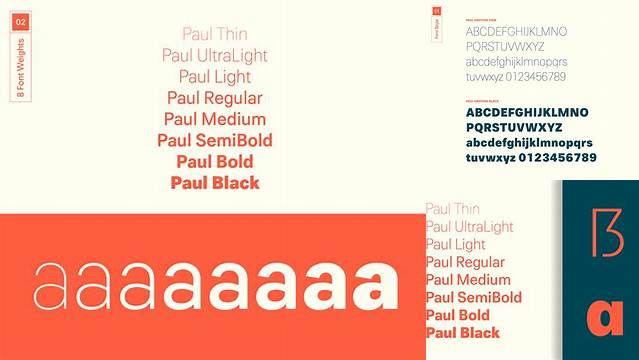
Paul Grotesk Font: Free Options & Alternatives
Are you on the hunt for a Paul Grotesk font that won't break the bank? Well, you've landed in the right spot! This comprehensive guide will dive deep into the world of Paul Grotesk fonts, exploring what makes them so appealing and, most importantly, where you can find free options. We'll cover everything from the font's history and characteristics to its best uses and readily available alternatives. Whether you're a seasoned designer or a newbie just starting, you'll find valuable information here to elevate your typography game. Let's get started, guys!
What is Paul Grotesk Font?
To truly appreciate the allure of Paul Grotesk fonts, it's essential to understand what defines them. Generally speaking, a grotesque font (also known as a sans-serif font) is characterized by its clean lines, uniform strokes, and the absence of serifs (those little decorative strokes at the end of letterforms). This gives them a modern and often minimalist appearance. Paul Grotesk, as the name suggests, is a specific style within this broader category. Typically, Paul Grotesk fonts exude a sense of functionality, clarity, and neutrality, which makes them incredibly versatile for a wide array of design projects. They’re often favored in situations where readability and a contemporary feel are paramount.
Consider the various elements that make up the unique charm of this font style. For instance, the letterforms usually boast a consistent stroke weight, which contributes to visual harmony. The x-height (the height of the lowercase 'x') tends to be relatively large, further enhancing readability. Moreover, the spacing between letters is carefully calibrated to ensure a smooth reading experience. All these subtle details work together to create a typeface that's both aesthetically pleasing and highly functional. This makes Paul Grotesk an excellent choice for anything from body text in books and articles to headlines and branding materials. Think of it as a reliable workhorse that can adapt to various design contexts without sacrificing its inherent elegance and clarity.
Key Characteristics of Paul Grotesk
When it comes to Paul Grotesk fonts, several key characteristics distinguish them and make them a popular choice among designers. These characteristics contribute to the font's overall aesthetic and functionality.
- Clean and Minimalist Design: Paul Grotesk fonts are known for their clean lines and minimalist design. The absence of serifs gives them a modern and uncluttered look.
- Uniform Stroke Weight: The uniform stroke weight in Paul Grotesk fonts ensures visual consistency and enhances readability. This makes them suitable for both display and body text.
- Excellent Readability: One of the primary features of Paul Grotesk is its outstanding readability. The clear letterforms and carefully balanced proportions make it easy to read, even in small sizes.
- Versatility: Paul Grotesk fonts are incredibly versatile and can be used in a wide range of design projects, from branding and advertising to web design and editorial layouts.
- Neutral Appearance: The neutral appearance of Paul Grotesk allows it to blend seamlessly with other design elements without overpowering them. This makes it a great choice for projects where you want the content to take center stage.
These characteristics collectively make Paul Grotesk fonts a reliable and stylish option for designers looking to achieve a modern, clean, and readable aesthetic.
- Font Squirrel: Font Squirrel is another fantastic resource for free, high-quality fonts. They specialize in fonts that are licensed for commercial use, so you can rest easy knowing you're covered. Browse their selection carefully, and you might find a Grotesk font that fits the bill. They also offer a handy font identifier tool if you have an image of a font you're trying to identify.
- Dafont: Dafont is a popular platform with a massive library of fonts contributed by designers from around the world. While not all fonts on Dafont are suitable for commercial use, they offer a wide variety of free fonts that you can use for personal projects. Be sure to filter your search to find sans-serif fonts and carefully review the license agreement before downloading.
- Creative Market (Free Goods Section): Creative Market often offers free goods, including fonts, on a weekly or monthly basis. Check their freebies section regularly to see if a Paul Grotesk-style font becomes available. These freebies are typically high-quality and come with commercial licenses, making them a great option if you're lucky enough to find one.
Always remember to respect the font creator's license. Even if a font is free, it doesn't mean you can use it however you want. Most free fonts come with specific usage restrictions, so make sure you understand them before incorporating the font into your projects.
If you can't find the perfect free Paul Grotesk font, don't worry! There are plenty of great alternatives available, such as Helvetica, Arial, Open Sans, Lato, and Roboto. Experiment with these fonts to find the one that best suits your needs and helps you achieve your design goals. With the right typeface, you can create stunning designs that effectively communicate your message and leave a lasting impression. Happy designing, and may your fonts always be free (or at least affordable) and beautiful!